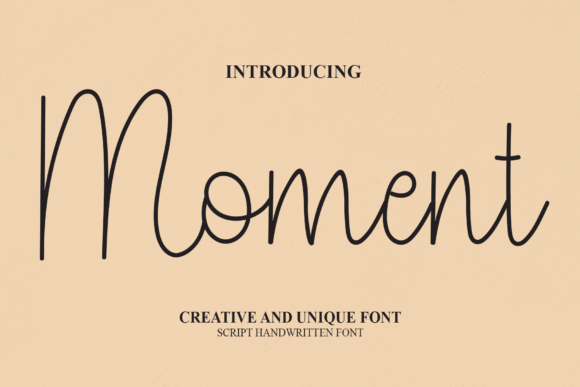
Moment Font: A Playful Script for Creative Designs
“Moment” is a delightful script font that exudes charm and playfulness with its dancing and flowing characters. This font adds a unique and eye-catching touch to a variety of creative projects, making them truly stand out and capture attention.
Moment Font in Branding and Logos
In the context of branding and logos, “Moment” brings a sense of vibrancy and liveliness. The font’s playful characters create a memorable and distinct brand identity that resonates with customers and clients.
Enhancing Invitations and Greeting Cards
For invitations and greeting cards, “Moment” adds a whimsical and joyful element to the message. The font’s dancing baseline and charming design create an inviting and warm atmosphere, setting the tone for a special occasion or heartfelt sentiment.
Moment Script in Quotes and Social Media
In quotes and social media posts, “Moment” enhances the impact of the message. The font’s dynamic characters draw the reader’s eye and emphasize the words, making the quote or message more engaging and visually appealing.
Versatility of Moment Typography
For creative projects such as posters, flyers, and banners, “Moment” injects a sense of fun and energy. The font’s playful characters and flowing design add movement and excitement to the visual composition, making it visually captivating.
Moment Font in Crafting and DIY Projects
When used in crafting and DIY projects, “Moment” adds a personalized and handcrafted feel. The font’s handwritten appearance gives a sense of authenticity and uniqueness to handmade creations.
Conclusion: Moment – A Font for Joyful Expressions
“Moment” is a versatile and charming script font that brings a touch of playfulness and creativity to a wide range of design projects. Its dancing characters and flowing baseline add a sense of movement and joy, making your creations truly stand out and leave a lasting impression. Whether it’s branding, invitations, quotes, or creative endeavors, “Moment” is a font that adds a delightful and captivating element to your work.